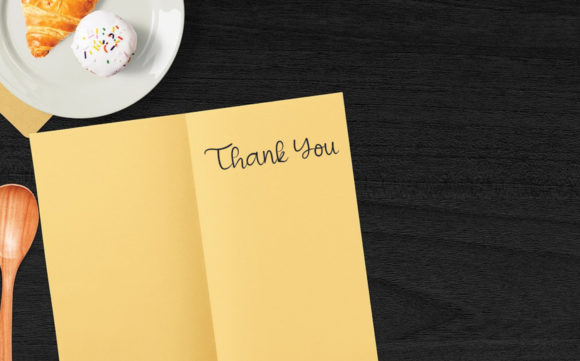
Amsterdam Font
About Amsterdam Font
Amsterdam is a sweet and cursive handwritten font. This gentle font will look gorgeous on a variety of design ideas. It will add a joyful and romantic touch to each of your projects!